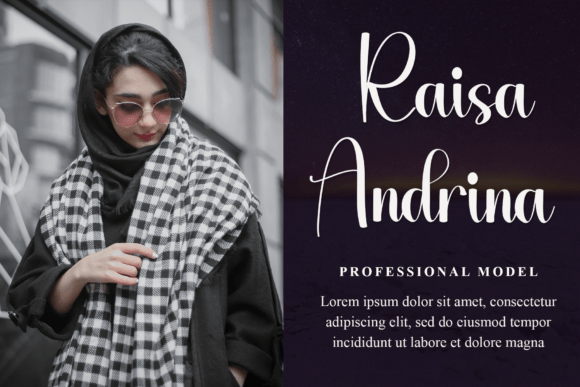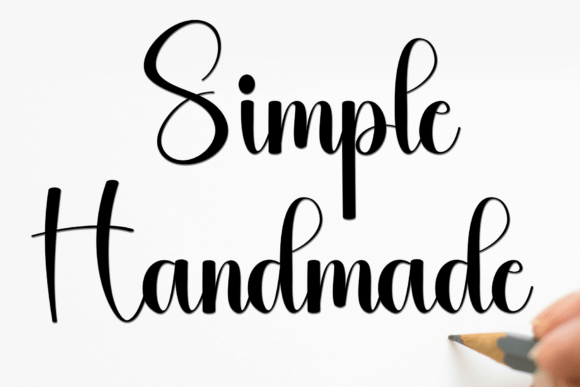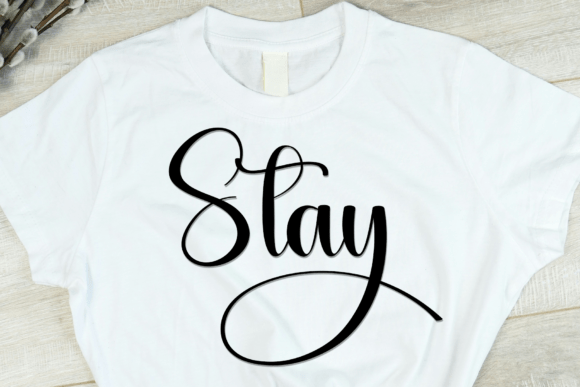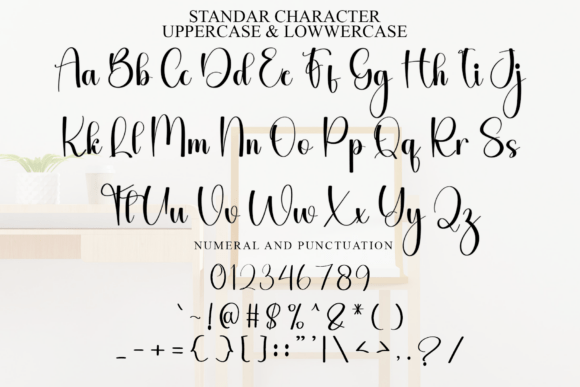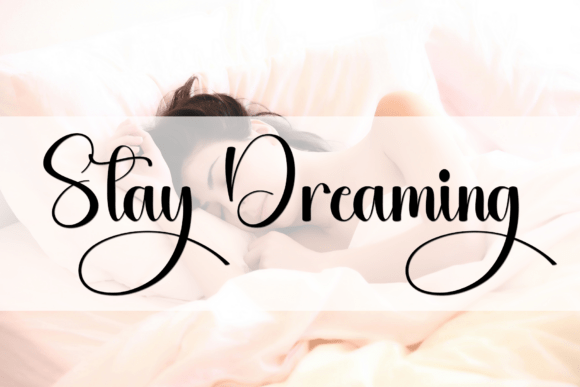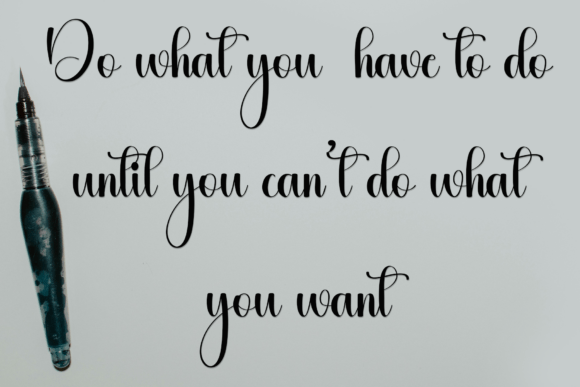
The Beauty of Design Font: Elevate Your Creative Projects with a Unique Touch
In the world of design, typography plays a crucial role in conveying messages, evoking emotions, and creating visual identities. Among the numerous font styles available, Design Font stands out with its soft, unique touch and distinctive strokes, making it a versatile and meaningful choice for designers and crafters. In this article, we’ll explore the features, benefits, and uses of Design Font, and how it can elevate your creative projects.
What is Design Font?
Design Font is a beautifully crafted font, designed with a soft and unique touch that sets it apart from other font styles. Its distinctive strokes give it a special character, making it perfect for a wide range of creative projects, from design and crafts to artistic and literary works. With a variety of characters, Design Font offers a fresh and exciting way to express yourself and bring your ideas to life.
Key Features of Design Font
- Unique and Soft Touch: Design Font boasts a one-of-a-kind design, with soft and rounded edges that give it a friendly and approachable feel.
- Distinctive Strokes: The font’s strokes are carefully crafted to create a special character that sets it apart from other fonts.
- Versatile and Meaningful: Design Font is designed to be versatile and meaningful, making it suitable for a wide range of creative projects.
Uses of Design Font
Design Font is perfect for a wide range of creative projects, including:
- Design Projects: Use Design Font to create stunning visual identities, logos, and branding materials.
- Crafts: Add a personal touch to your crafts, such as handmade cards, gift tags, and scrapbooking.
- Artistic and Literary Works: Design Font is ideal for artistic and literary works, such as poetry, short stories, and novels.
- Digital and Print Media: Use the font in digital and print media, including brochures, flyers, and social media graphics.
In conclusion, Design Font is a beautiful and versatile font that can elevate your creative projects with its unique and soft touch. Its distinctive strokes, compatibility with various applications, and cross-platform compatibility make it an ideal choice for designers and crafters. Whether you’re working on design projects, crafts, or artistic and literary works, Design Font is sure to inspire creativity and bring your ideas to life.